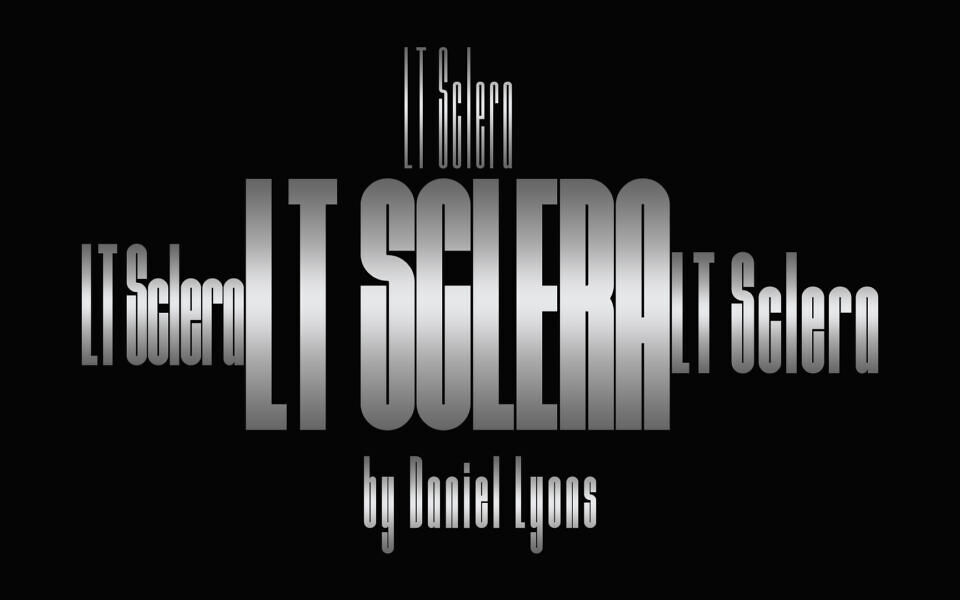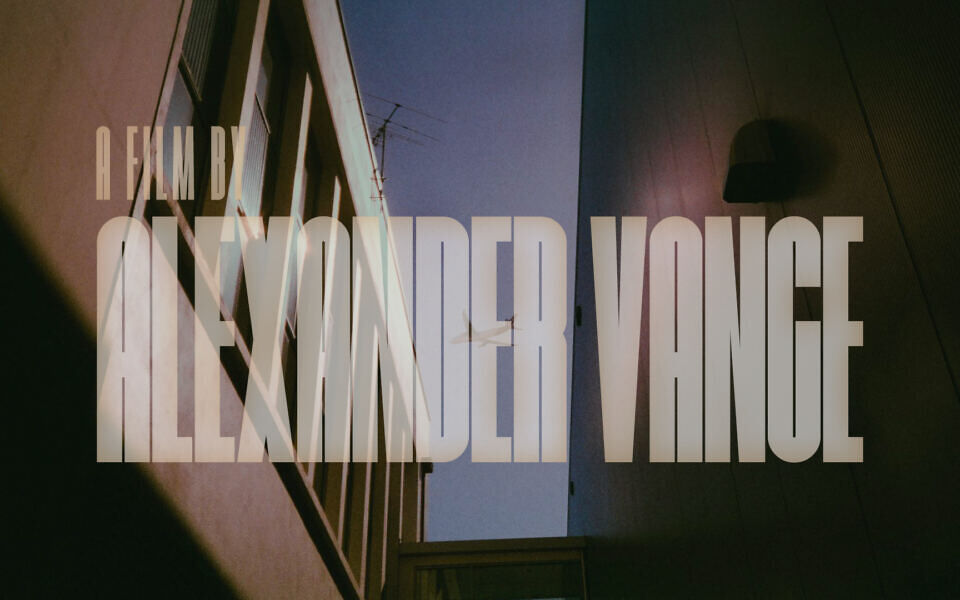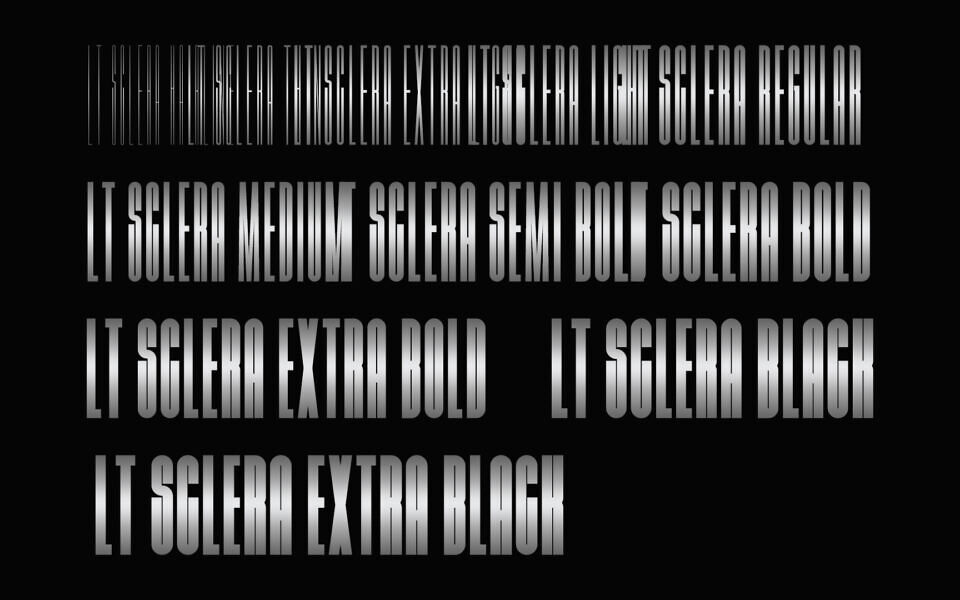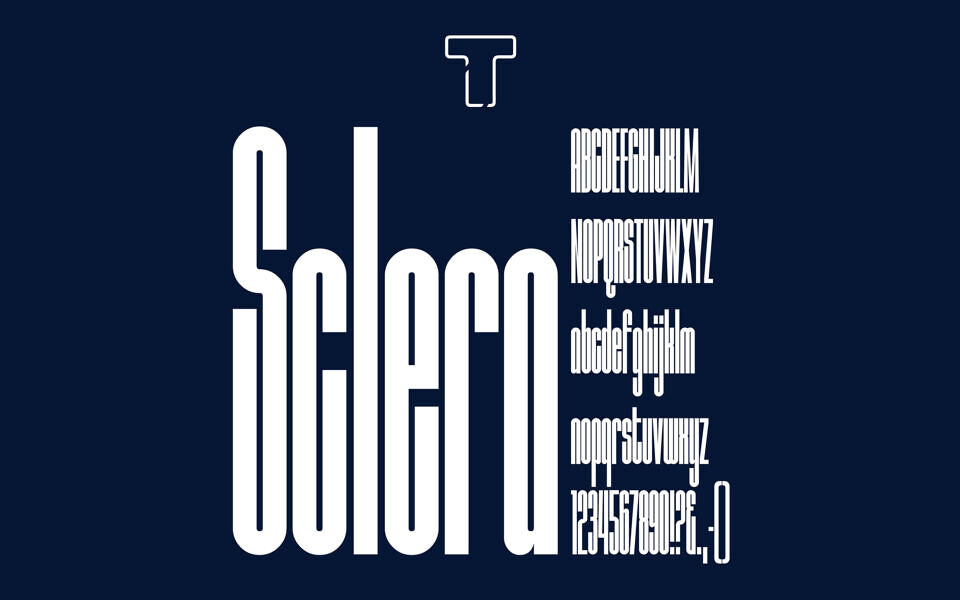
LT Sclera is a typeface with maximum squeeze. The hairline variant of the font family is the first instance to be the thinnest aspect of my type design skills.
Note that this typeface has a limited character set, so there may be plans to extend the glyph set with more symbols, accented glyphs, and maybe WGL support.